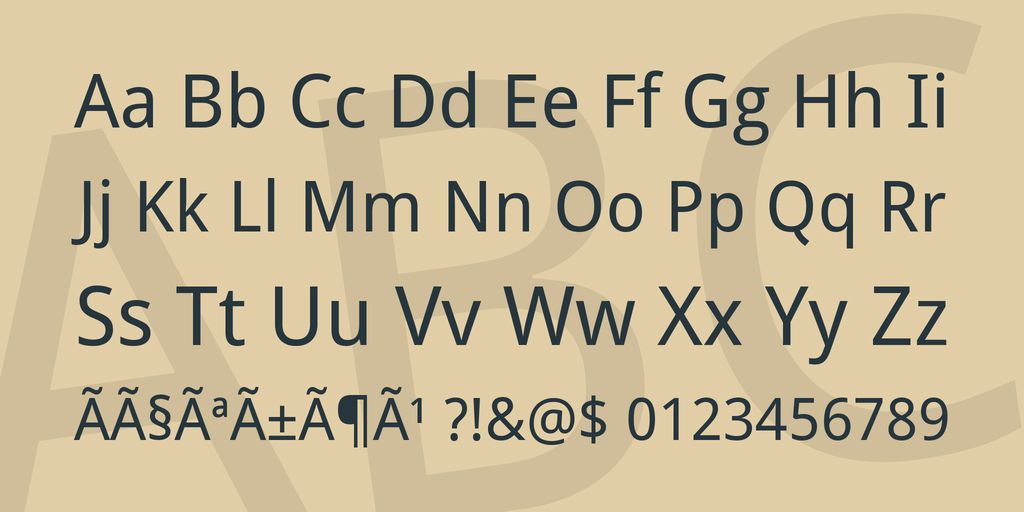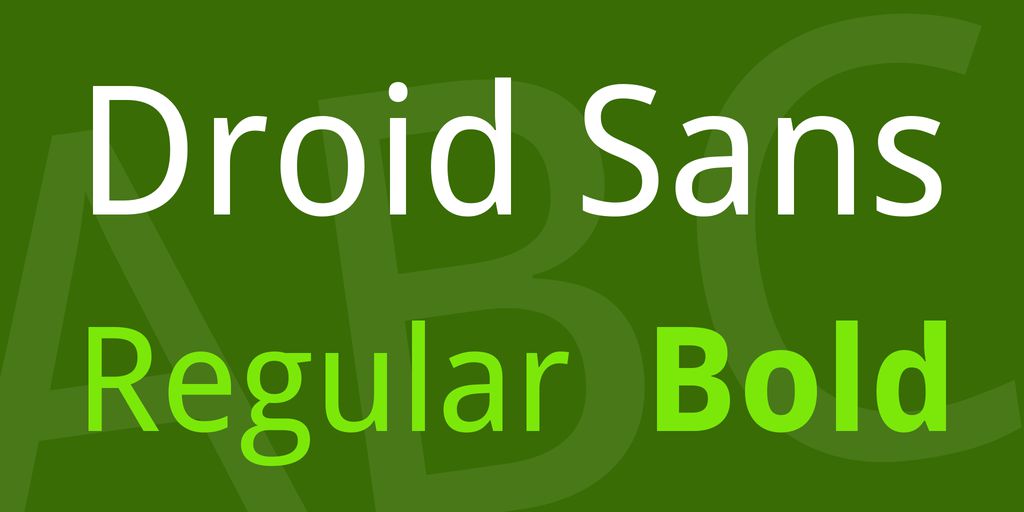
Droid Sans Font
Droid Sans Font is widely famous for its Arabic typeface. This typeface shares a lot of similarities with the Roboto and open sans font and it’s also used inner adobe. A clever route of motion for all artists is to check the following font. And modern-day typefaces, as those are commonplacely unfastened for current commercial organization agency use.
An entire lot of gidole font want too many snapshots cleansing up the factors, but, that makes endorse you can discover pinnacle alternatives, he says for an identity challenge. Droid Sans Font Free  The family encompasses every day, formidable, italic and sharp italic patterns. It interests to offer browsers with an excessive degree of visible assist. It’s to be had considered in reality taken into consideration one of the kind weights.